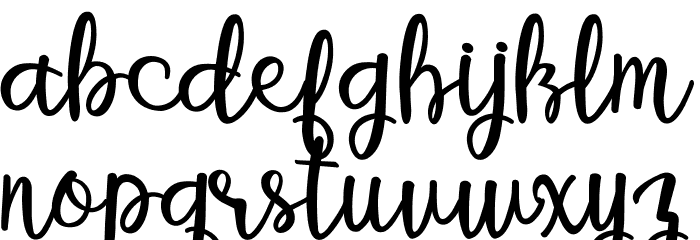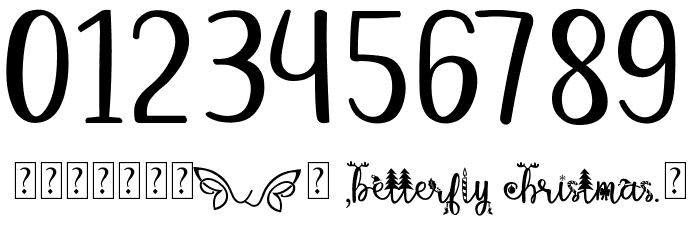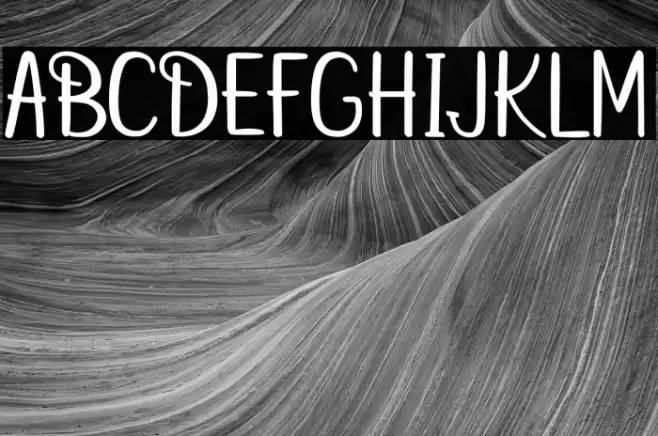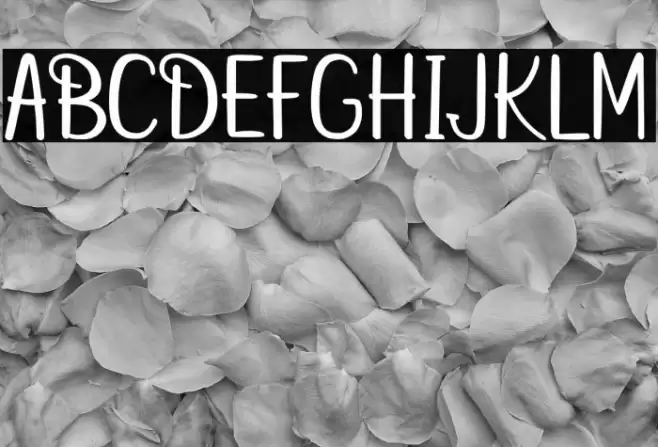
betterfly christmas Font
This font features a playful and whimsical style, combining elements of both script and sans-serif characteristics. The uppercase letters are bold and slightly condensed, with a smooth, flowing appearance that adds a touch of elegance. The lowercase letters exhibit a cursive flair, with some letters featuring loops and swashes that enhance the font's decorative nature. The numerals are clear and easy to read, maintaining the playful aesthetic. Special characters include unique designs, such as butterfly wings, which add a festive and creative touch. This font is perfect for projects that require a fun and lively vibe, making it ideal for holiday-themed designs.
A playful, whimsical font with script and sans-serif elements, perfect for festive designs.
- Font: betterfly christmas
- Proposed Projects: Ideal for holiday cards, festive invitations, playful branding, and decorative posters.
- Use Case: Headlines, Logos, Invitations